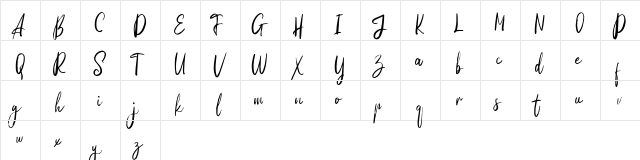
Kodute FREE Regular
Design Context for Kodute FREE Typeface
Kodute FREE is a composed and adaptable typeface that performs quietly and consistently across a wide range of design contexts.